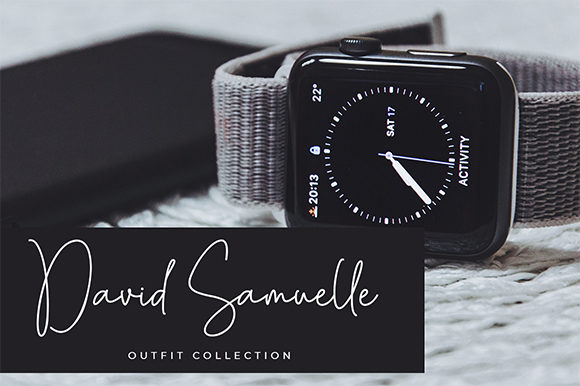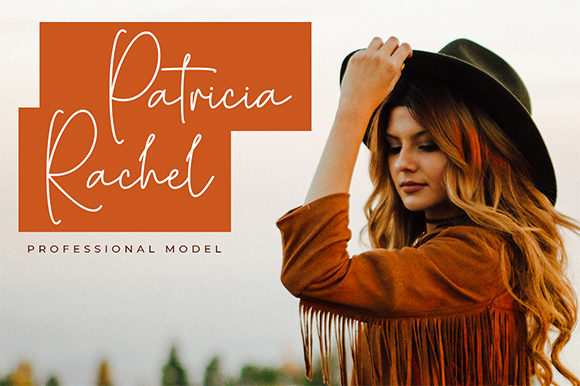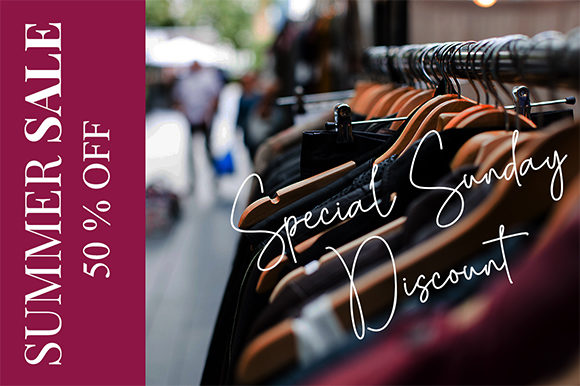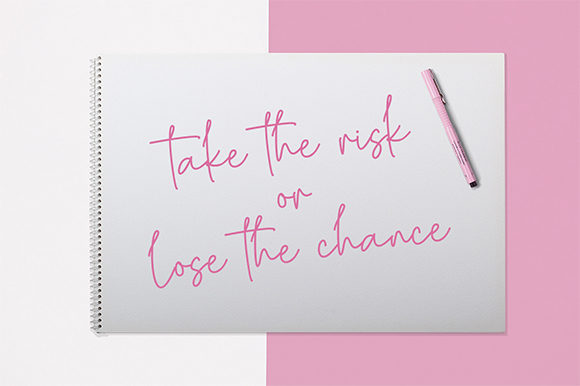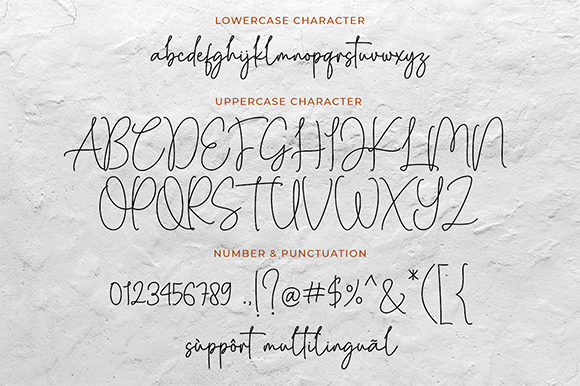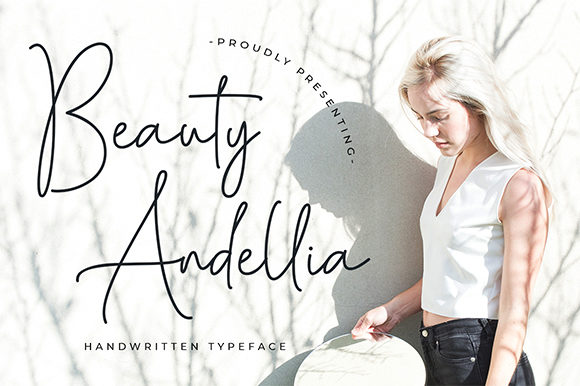
Introducing Beauty Andellia Font: The Perfect Handwritten Font for Your Creative Projects
Are you looking for a font that adds a personal touch to your designs? Look no further than Beauty Andellia Font! This stunning signature font is perfect for crafters, designers, and anyone who wants to create beautiful and unique visual content. In this article, we’ll explore the features and benefits of Beauty Andellia Font, and show you how to use it to take your designs to the next level.
What is Beauty Andellia Font?
Beauty Andellia Font is a handwritten font that exudes elegance and sophistication. Its authentic feel makes it perfect for creating designs that require a personal touch. Whether you’re designing wedding invitations, social media posts, or greeting cards, Beauty Andellia Font is the perfect choice.
Key Features of Beauty Andellia Font
• Handwritten style: Beauty Andellia Font has a beautiful, handwritten style that’s perfect for creating unique and personalized designs.
• Elegant and sophisticated: The font’s elegant and sophisticated feel makes it perfect for creating designs for special occasions, such as weddings and anniversaries.
• Authentic feel: The font’s authentic feel makes it perfect for creating designs that require a personal touch.
Benefits of Using Beauty Andellia Font
There are many benefits to using Beauty Andellia Font in your designs. Here are just a few:
• Adds a personal touch: Beauty Andellia Font adds a personal touch to your designs, making them stand out from the crowd.
• Perfect for special occasions: The font’s elegant and sophisticated feel makes it perfect for creating designs for special occasions, such as weddings and anniversaries.
• Increases engagement: The font’s unique and personalized style can help increase engagement with your audience.
• Versatile: Beauty Andellia Font can be used for a wide range of design projects, from wedding invitations to social media posts.
Design Ideas Using Beauty Andellia Font
Here are some design ideas to get you started with Beauty Andellia Font:
• Wedding invitations: Use Beauty Andellia Font to create beautiful and elegant wedding invitations that set the tone for the big day.
• Social media posts: Use the font to create eye-catching social media posts that stand out from the crowd.
• Greeting cards: Use Beauty Andellia Font to create cute and personalized greeting cards for special occasions.
• Stationary art: Use the font to create beautiful stationary art that’s perfect for adding a personal touch to your correspondence.
Beauty Andellia Font is a stunning signature font that’s perfect for adding a personal touch to your designs. Its elegant and sophisticated feel makes it perfect for creating designs for special occasions, and its authentic feel makes it perfect for creating unique and personalized designs. With its ease of use and versatility, Beauty Andellia Font is a must-have font for designers and crafters. So why wait? Download Beauty Andellia Font today and start creating beautiful designs that stand out from the crowd!